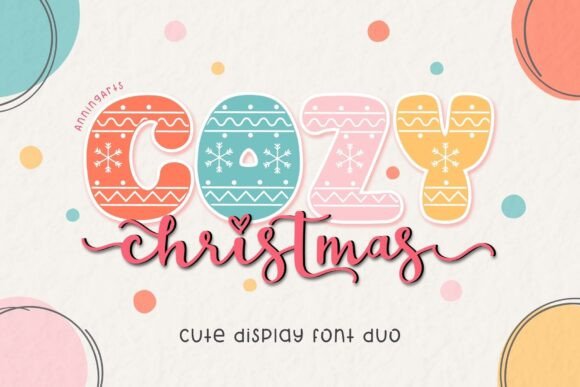
Cozy Christmas Duo Font: The Ultimate Festive Font for Your Holiday Designs
As the holiday season approaches, designers and crafters are on the lookout for the perfect fonts to add a touch of warmth and cheer to their projects. If you’re searching for a font that embodies the spirit of Christmas, look no further than the Cozy Christmas Duo Font. This charming font duo is specifically designed to bring a festive feel to your designs, making it ideal for a wide range of holiday projects.
What is Cozy Christmas Duo Font?
The Cozy Christmas Duo Font is a set of two fonts that combine a playful display style with a whimsical script. This font duo features Christmas-themed patterns such as snowflakes and zigzags within the bold, decorative letters, giving it a unique and festive look. The combination of the two fonts offers endless possibilities for creative design projects, from greeting cards and holiday invitations to gift tags and seasonal branding.
Key Features of Cozy Christmas Duo Font
- Playful Display Style: The bold, decorative letters are perfect for making a statement in your designs.
- Whimsical Script: The script font adds a touch of elegance and sophistication to your projects.
- Christmas-Themed Patterns: Snowflakes, zigzags, and other festive patterns add a holiday cheer to your designs.
- Versatile: Suitable for a wide range of projects, including greeting cards, holiday invitations, gift tags, and seasonal branding.
Uses for Cozy Christmas Duo Font
The Cozy Christmas Duo Font is perfect for any project that requires a festive and fun touch. Here are some ideas to get you started:
- Greeting Cards: Create personalized and festive greeting cards for friends and family.
- Holiday Invitations: Design eye-catching invitations for holiday parties, events, and gatherings.
- Gift Tags: Add a personal touch to gifts with custom gift tags featuring the Cozy Christmas Duo Font.
- Seasonal Branding: Use the font to create festive branding for your business, including logos, packaging, and advertising.
- Social Media Graphics: Create engaging social media graphics, such as holiday-themed Facebook posts and Instagram stories.
Benefits of Using Cozy Christmas Duo Font
Using the Cozy Christmas Duo Font in your designs offers several benefits, including:
- Time-Saving: The font duo saves you time and effort in creating custom holiday designs from scratch.
- Consistency: The font set ensures consistency in your designs, giving them a cohesive and professional look.
- Customization: The font duo offers endless possibilities for customization, allowing you to tailor your designs to your specific needs.
- Festive Touch: The Cozy Christmas Duo Font adds a festive touch to your designs, making them perfect for the holiday season.
Tips for Using Cozy Christmas Duo Font
Here are some tips for getting the most out of the Cozy Christmas Duo Font:
- Experiment with Different Sizes: Play around with different font sizes to create visual interest and hierarchy in your designs.
- Mix and Match: Combine the playful display style with the whimsical script to create unique and eye-catching designs.
- Add Graphics: Add festive graphics, such as snowflakes and holly, to enhance your designs and add visual interest.
- Keep it Simple: Don’t overcomplicate your designs – keep it simple and let the font do the talking.
The Cozy Christmas Duo Font is a charming and festive font duo that’s perfect for adding warmth and holiday cheer to your designs. With its playful display style, whimsical script, and Christmas-themed patterns, this font set is ideal for a wide range of holiday projects. Whether you’re a designer, crafter, or DIY enthusiast, the Cozy Christmas Duo Font is sure to bring joy and festivity to your designs.